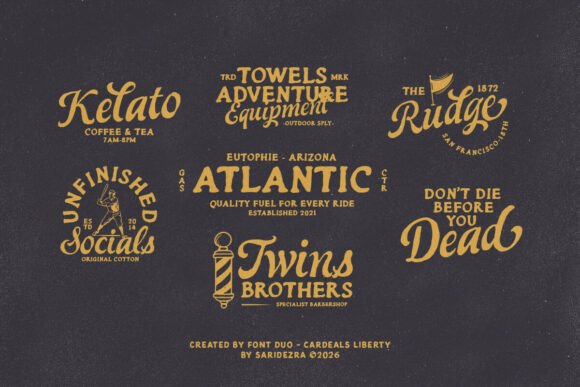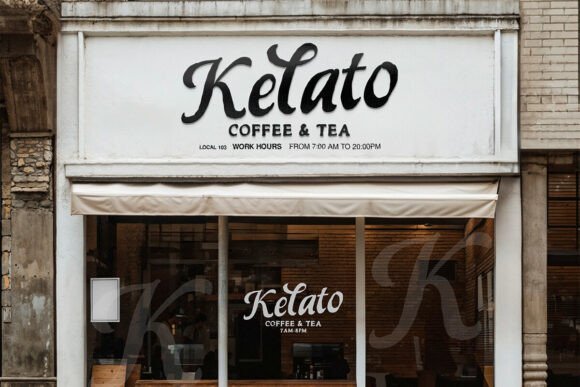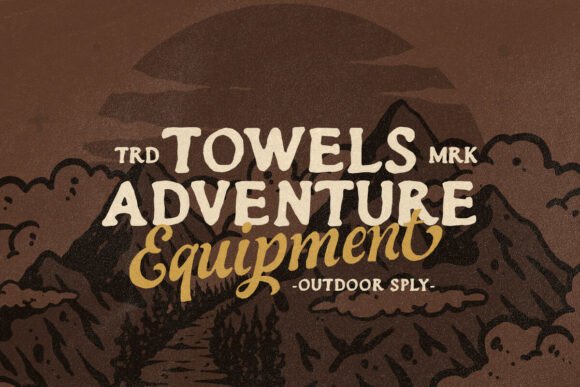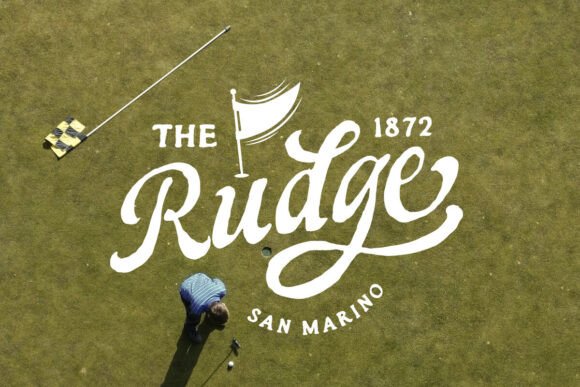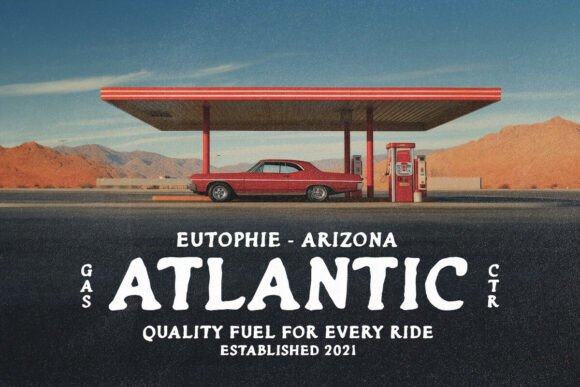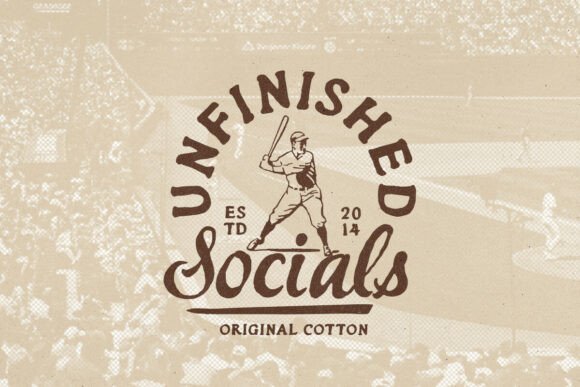
Introducing Cardeals Font: A Bold and Hand-Drawn Font Duo for Creative Projects
Are you tired of using generic and overused fonts in your design projects? Look no further than Cardeals Font, a bold and imperfectly crafted font duo that adds a touch of humanity to your work. With its stylish script, alternates, and underline features, Cardeals Font is perfect for designers and crafters looking to create unique and eye-catching designs.
What Makes Cardeals Font Stand Out?
Cardeals Font is a hand-drawn font duo that is designed to mimic the imperfections of human handwriting. This gives it a natural and organic feel that sets it apart from more traditional fonts. The font comes with a range of features, including:
• Stylish Script: Cardeals Font features a stylish script that is perfect for creating eye-catching headlines and titles.
• Alternates: The font includes alternate characters, allowing you to add variation and interest to your text.
• Underline: The font also includes an underline feature, which can be used to add emphasis to specific words or phrases.
• Multi-Language Support: Cardeals Font supports multiple languages, making it a versatile choice for designers working on international projects.
Uses for Cardeals Font
Cardeals Font is a versatile font duo that can be used for a wide range of design projects, including:
• Branding: Use Cardeals Font to create unique and memorable logos for your clients or business.
• Quotes: Add a touch of personality to your quote designs with Cardeals Font’s stylish script.
• Posters: Create eye-catching posters with Cardeals Font’s bold and attention-grabbing lettering.
• Logotype: Cardeals Font is particularly well-suited for logotype designs, thanks to its bold and hand-drawn style.
Benefits of Using Cardeals Font
There are many benefits to using Cardeals Font in your design projects, including:
• Unique and Eye-Catching Designs: Cardeals Font’s hand-drawn style and range of features make it perfect for creating unique and eye-catching designs.
• Time-Saving: With Cardeals Font, you can create professional-looking designs in a fraction of the time it would take to create them from scratch.
• Flexibility: The font’s versatility and range of features make it suitable for a wide range of design projects.
Tips for Using Cardeals Font
Here are a few tips for getting the most out of Cardeals Font:
• Experiment with Different Sizes: Cardeals Font looks great in a range of sizes, from large headlines to smaller body text.
• Play with Alternates: Take advantage of the font’s alternate characters to add variation and interest to your text.
• Use Underline Wisely: Use the underline feature sparingly to add emphasis to specific words or phrases.
Cardeals Font is a bold and hand-drawn font duo that is perfect for designers and crafters looking to add a touch of humanity to their work. With its stylish script, alternates, and underline features, Cardeals Font is versatile and easy to use, making it suitable for a wide range of design projects. Whether you’re working on branding, quotes, posters, or logotype designs, Cardeals Font is a great choice.